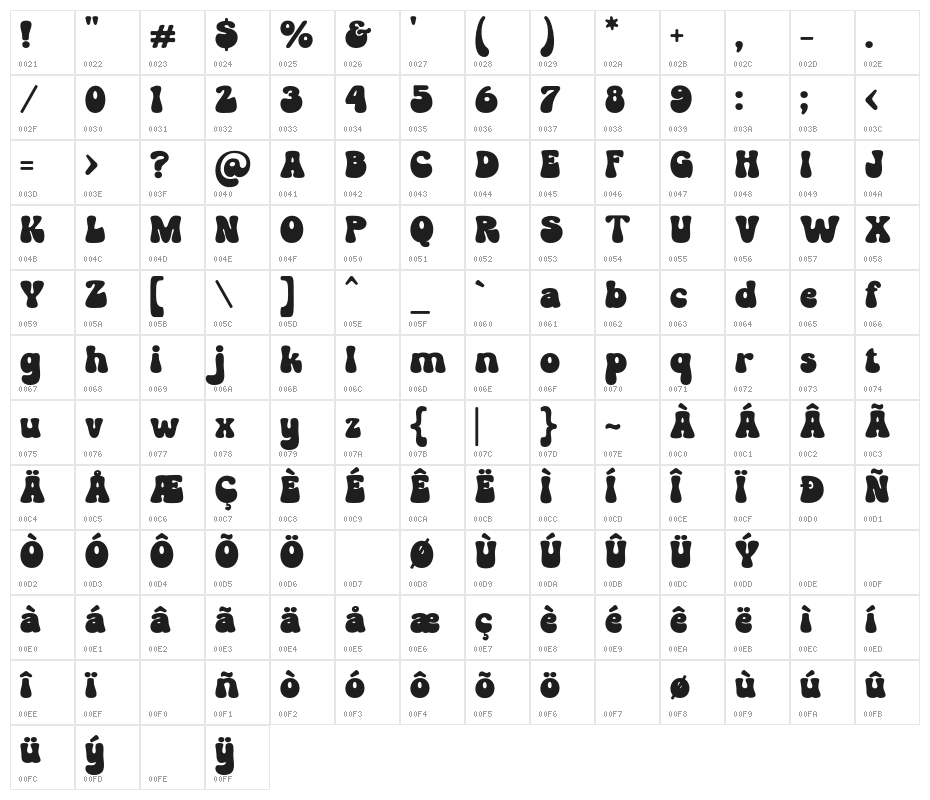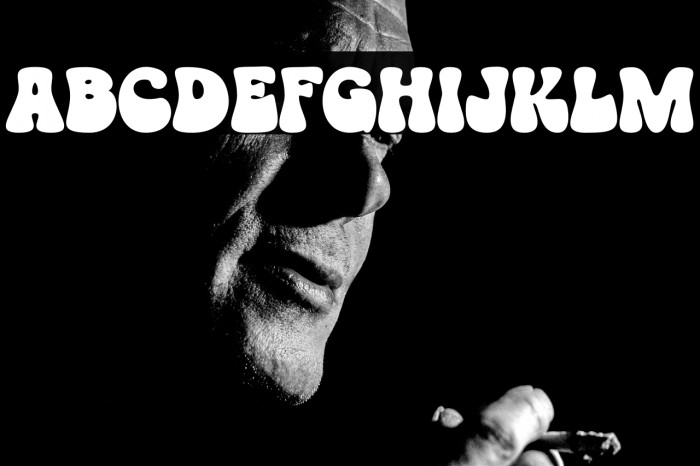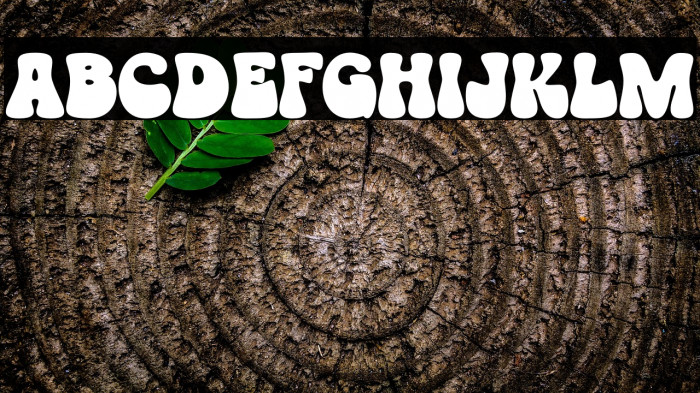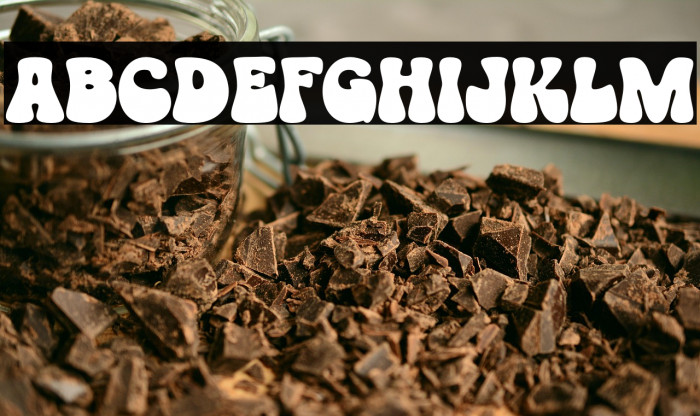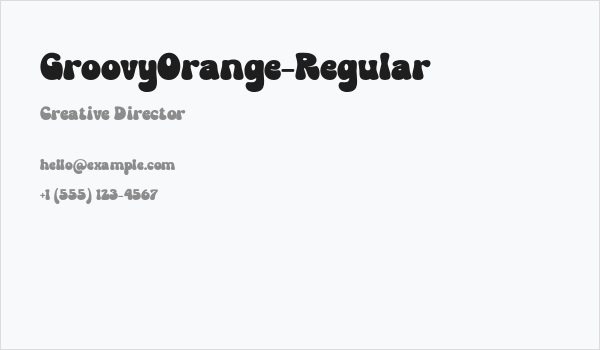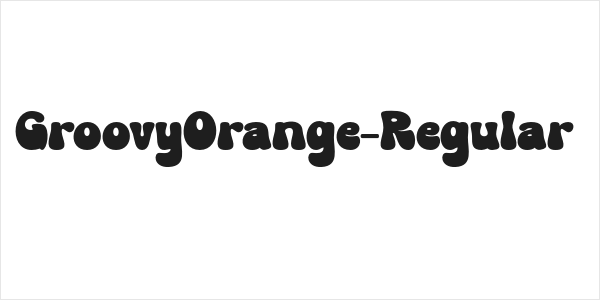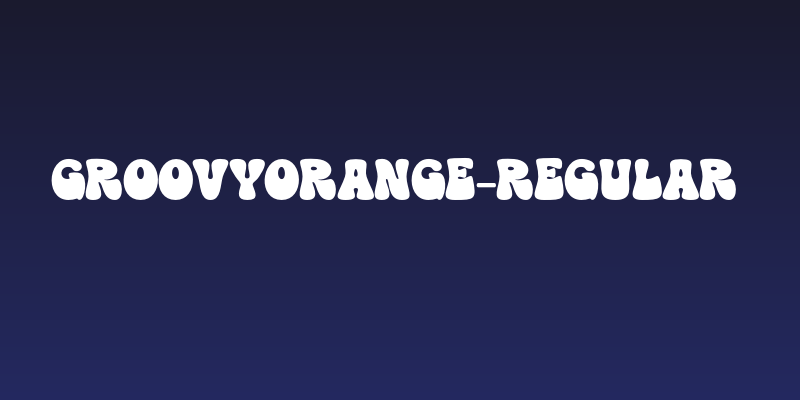
GroovyOrange-Regular Font
GroovyOrange-Regular Description
This font exudes a playful and bold character with its thick, rounded letterforms that convey a sense of fun and creativity. The letters are heavily weighted, giving them a substantial presence on the page. Each character is uniquely shaped, with a bubbly and slightly irregular form that adds to its whimsical appeal. The font's style is reminiscent of retro and psychedelic designs, making it ideal for projects that aim to capture a vintage or nostalgic feel. Its distinct appearance ensures that it stands out, making it suitable for eye-catching headlines and creative displays.
| Proposed Projects | Ideal for retro-themed posters, playful branding, children's book covers, and creative advertising campaigns. |